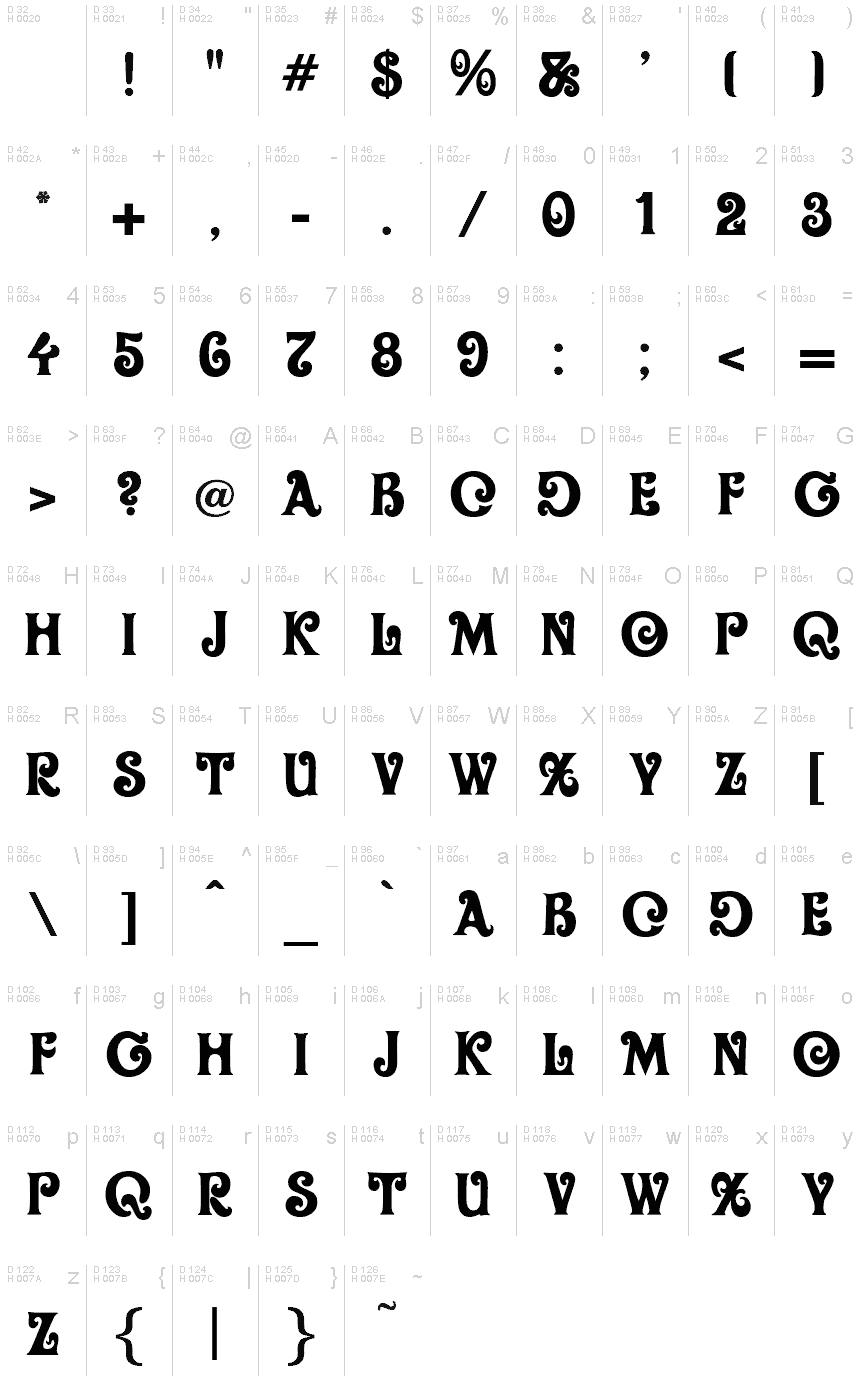
Oliver is a striking display font that exudes a delightful retro charm. Designed by Christine Mauerkirchner and Rainer Grunert, this curly typeface captivates with its whimsical curves and distinctive letterforms. The playful, swirling aesthetic lends a sense of playfulness and personality, making Oliver an excellent choice for creative projects, editorial layouts, and branding applications that seek to convey a nostalgic, yet modern vibe.
Its versatility allows it to shine in headlines, titles, and decorative elements, adding a touch of vintage flair to any design.